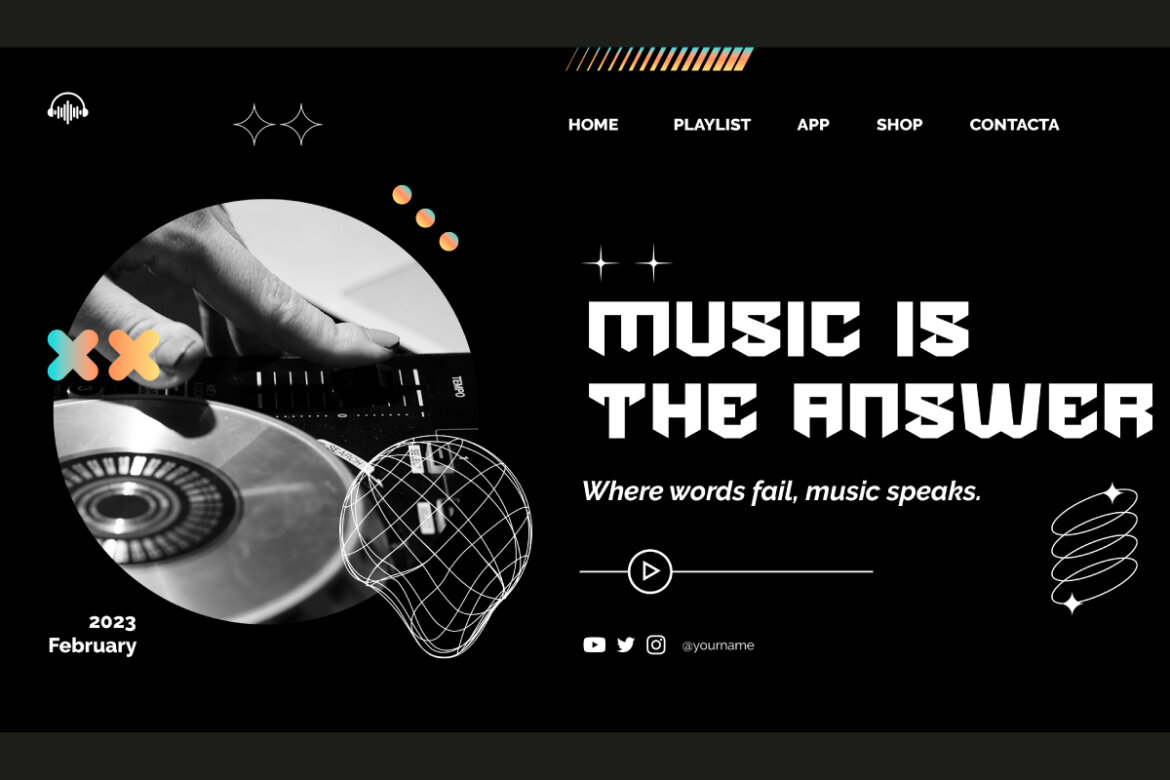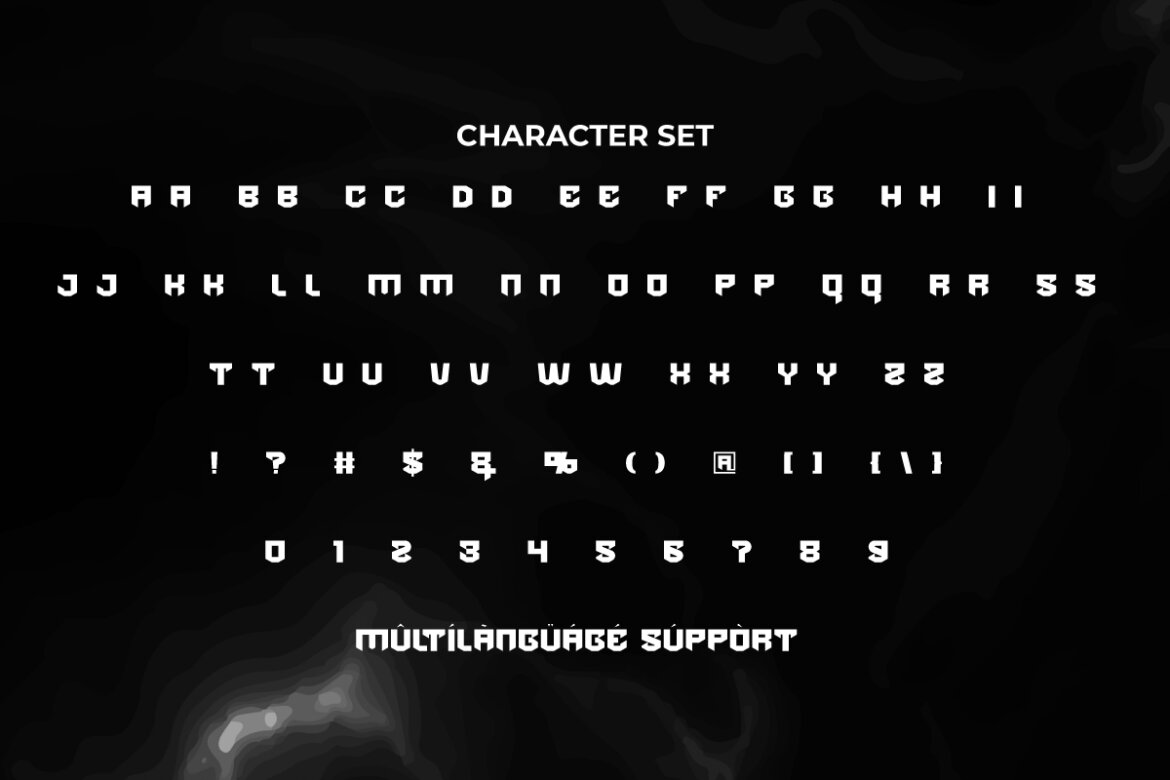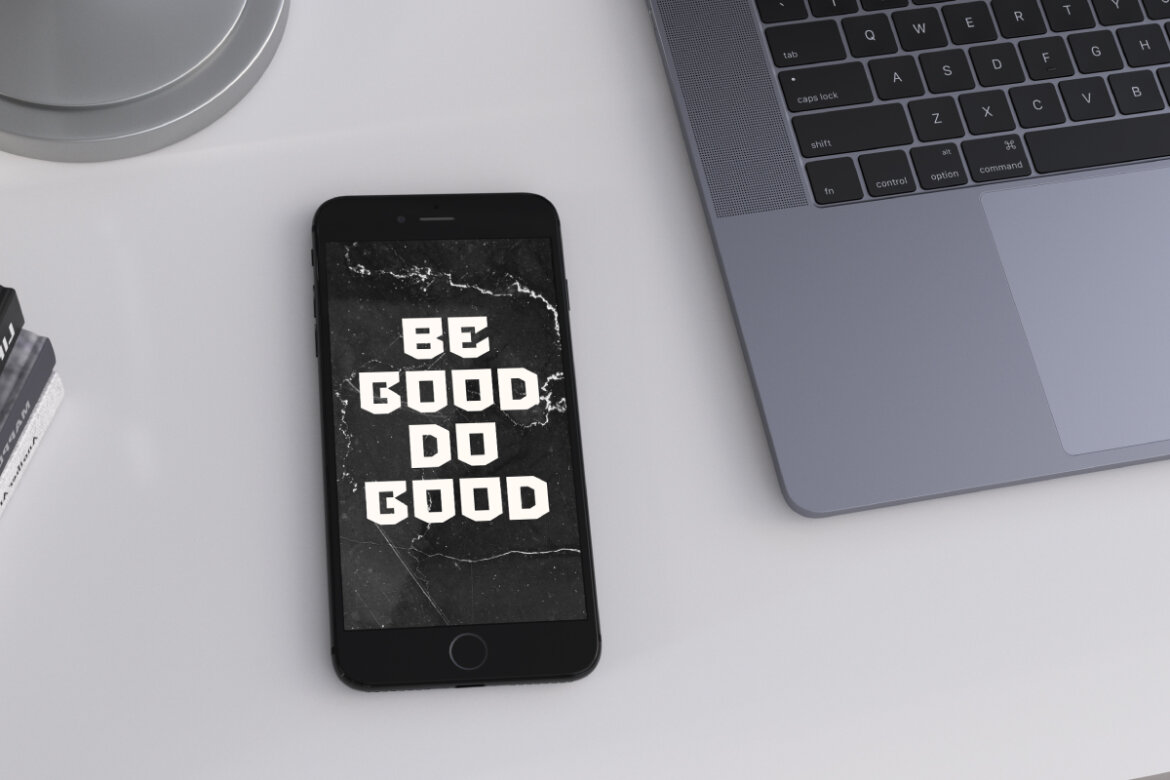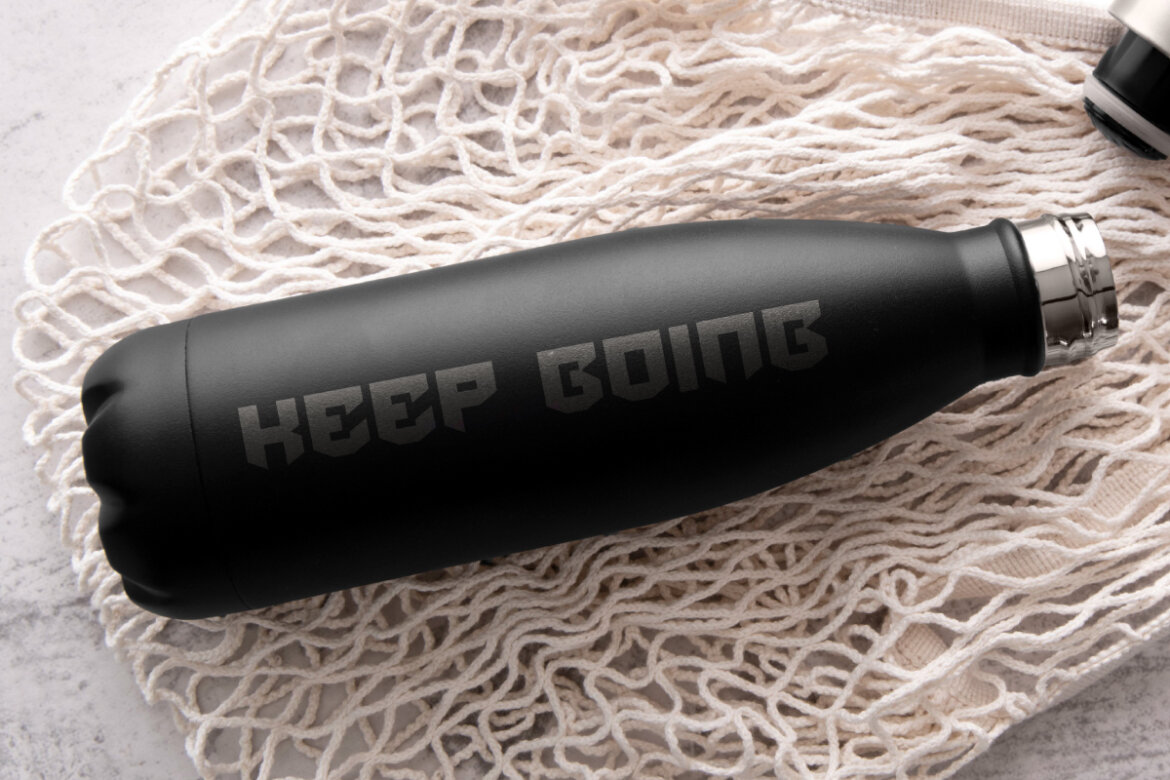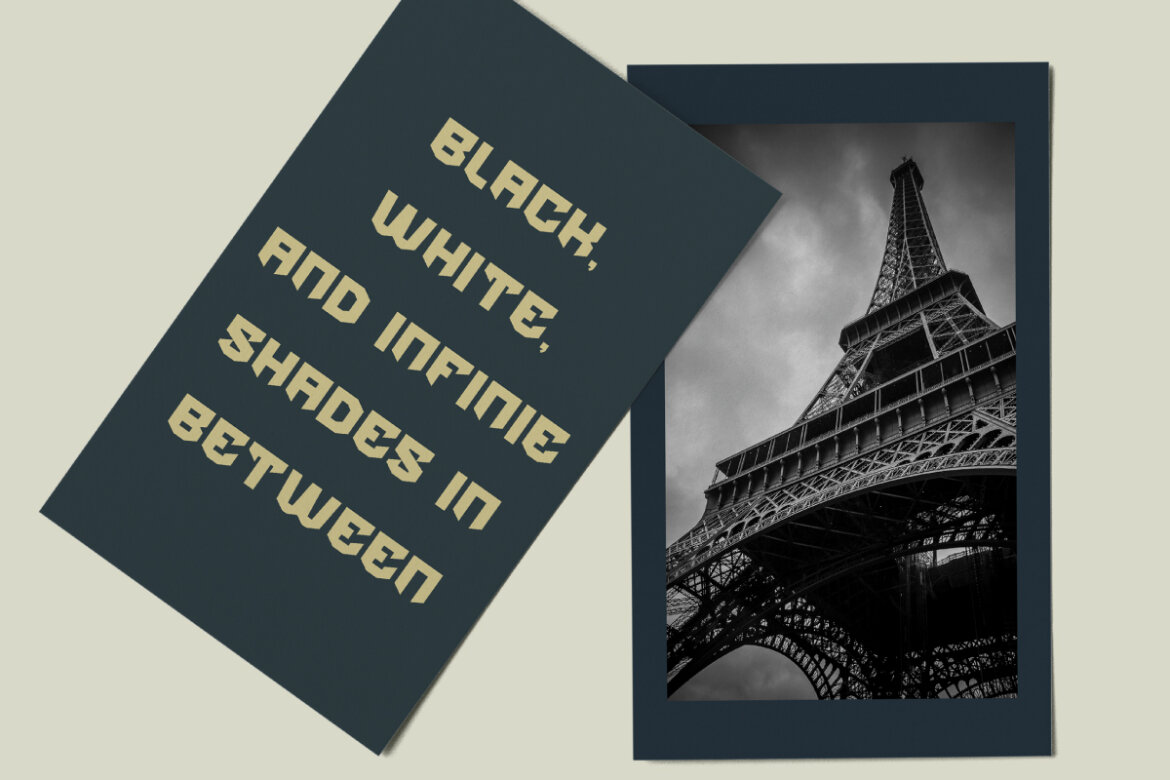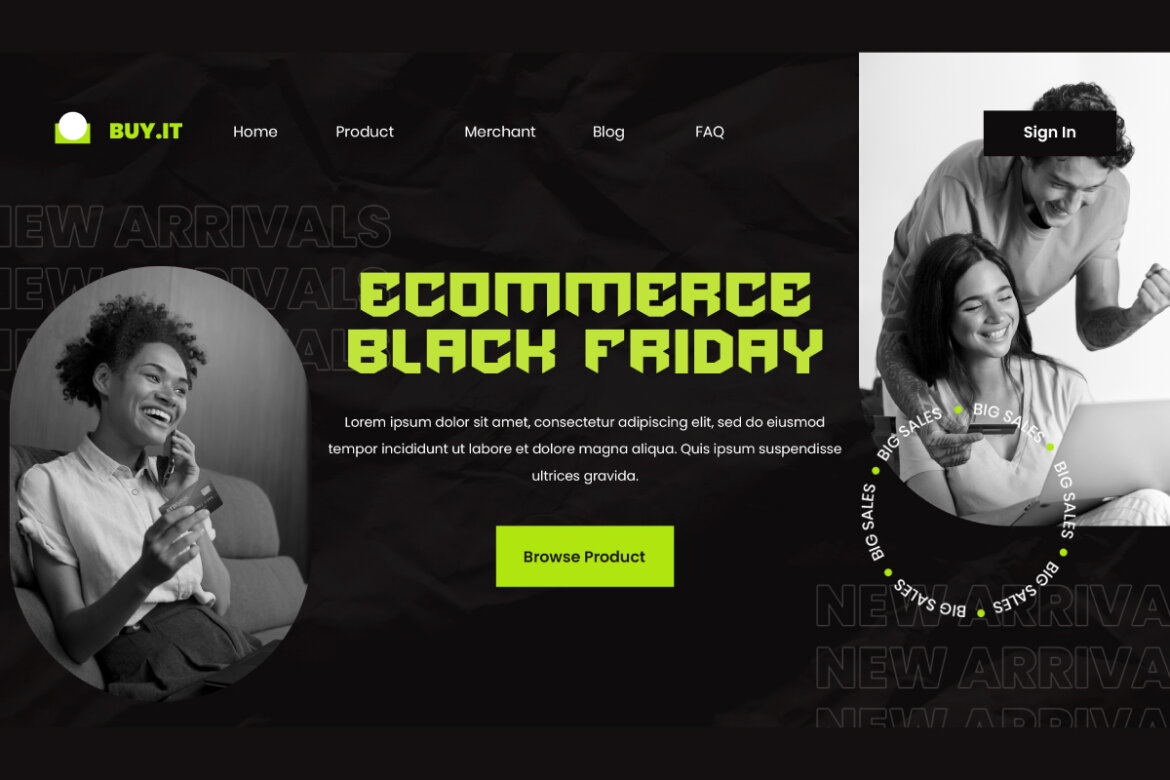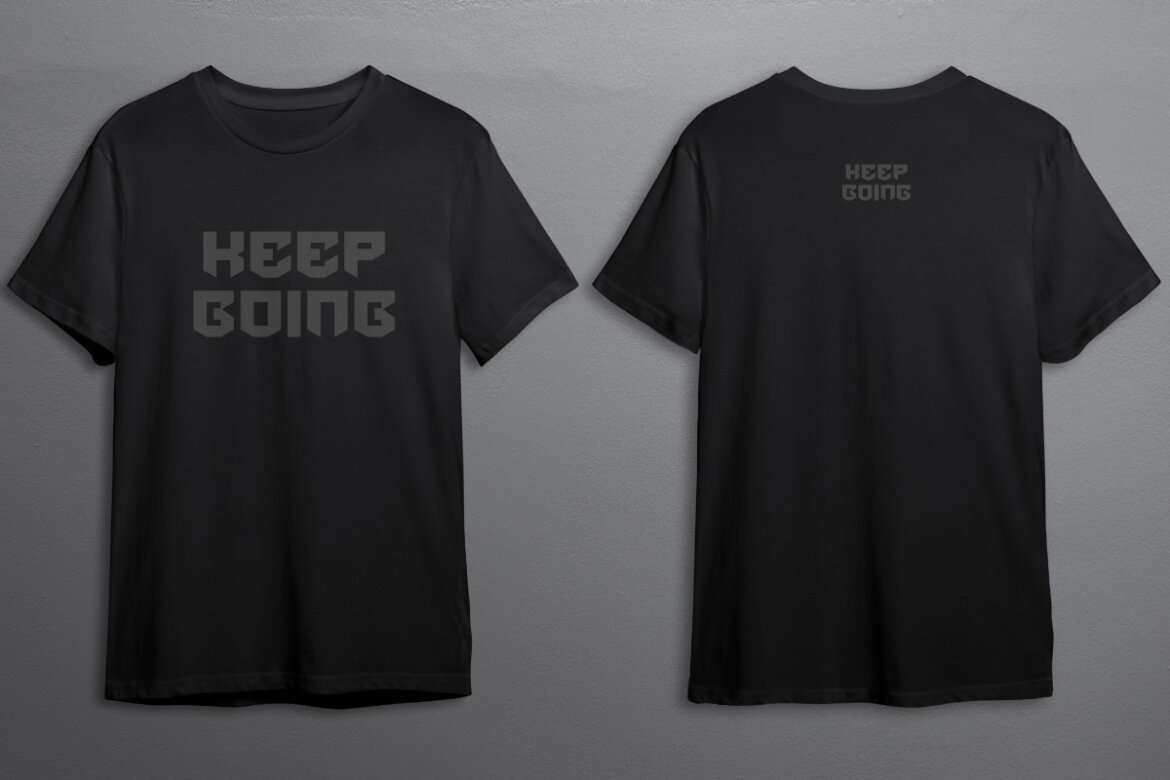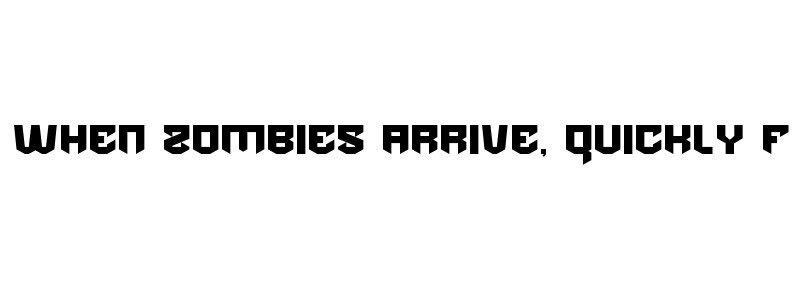
Black Cyber
Black Cyber Display Font a powerful display typeface crafted to command attention. Perfect for industries that thrive on strength and style, this font suits automotive, fashion, gaming, sportswear, music, photography, and modern branding.
Black Cyber Display Font comes with a full set of ALL CAPS for Uppercase and Lowercase letters, Number, Punctuation, and Symbol. Its solid shape, made more modern and simple makes it stand out as the main text. Excellent for automotive, clothing brand, fashion, games, graphic design, gyms, music, photography, sportswear brands, writers, and others.
Black Cyber Font a playful typeface with unique decoration in each character. Combine different characters for a bespoke, handcrafted feel. It’s tested to work well in the Adobe Apps (Illustrator, Adobe InDesign, Adobe Photoshop) even work on Microsoft Word. All of these characters are available through the glyph panel, moreover each letter has its own unicode (PUA) so you can access all the characters easily.